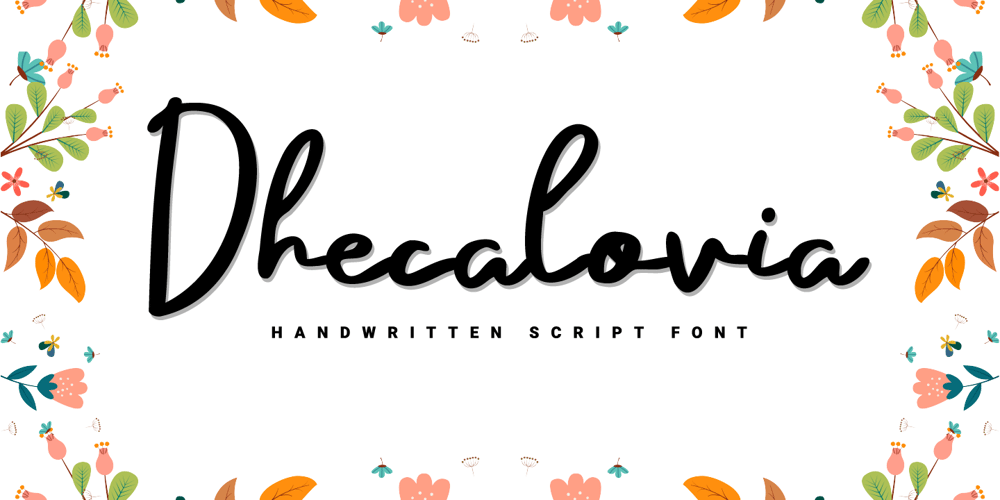
Dhecalovia
Dhecalovia font
Dhecalovia Font Family was designed by Prio Nurokhim Aji and published by Prioritype. Dhecalovia contains 1 styles and family package options. This font is cheerful and eye-catching. You can use it in both digital and print projects such as craft purposes, creative posts on social media, wedding invitations, photographer’s watermarks, branding, accessories, food packaging and much more to explore. For reference, see preview.Features:-Uppercase-Lowercase-Numeral-Punctuation-MultilingualThanks.